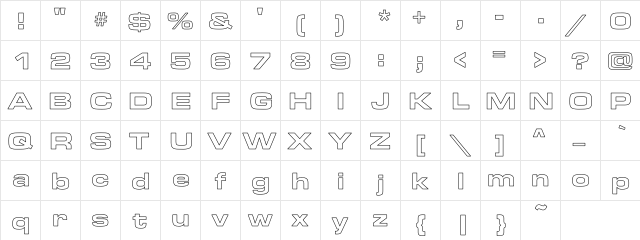
Aero Extended Hollow Regular
Design Context for Aero Extended Hollow Typeface
Aero Extended Hollow is a composed and adaptable typeface that performs quietly and consistently across a wide range of design contexts.